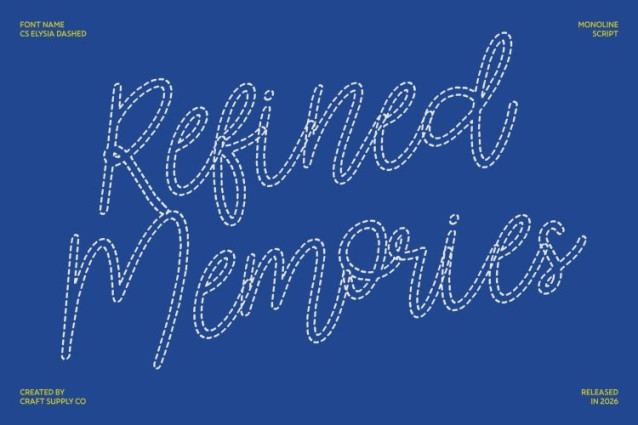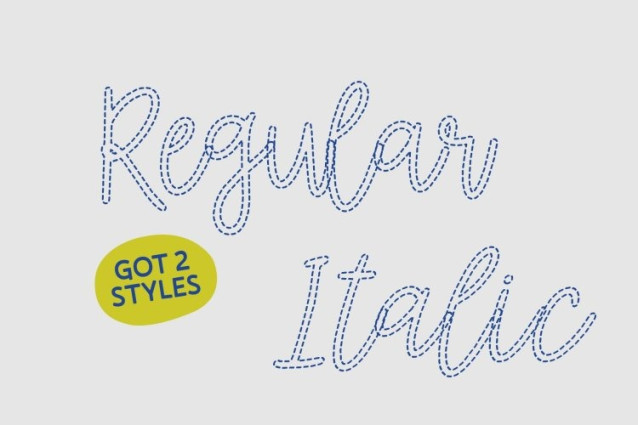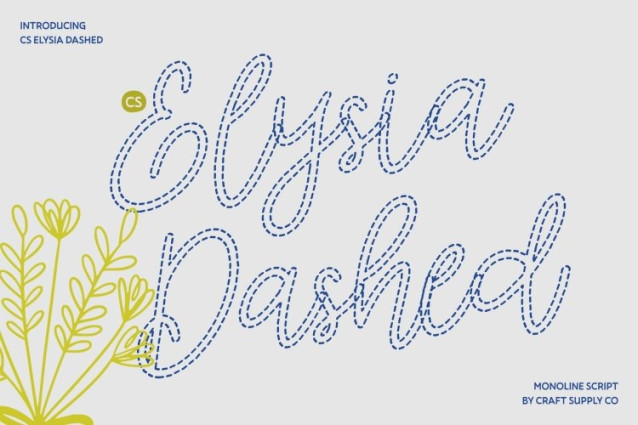
CS Elysia Dashed Font – This is a monoline script font that embodies sophistication through smooth curves and balanced rhythm. What sets it apart is its delicate dashed construction each stroke is formed from fine, broken segments rather than solid continuous lines. This creates a light, airy texture that enhances the sense of movement while preserving clarity and elegance. The result is a script that feels romantic, graceful, and visually distinctive.
Effortless Style with Modern Artistic Detail
Designed with harmony and refinement in mind, blends classic beauty with a subtle creative twist. The consistent monoline weight maintains a clean and polished look, while the segmented strokes introduce softness and a relaxed artistic feel. This balance gives the font a luxurious yet approachable personality, ideal for modern designs that seek understated sophistication.
Perfect for Elegant and Romantic Designs
From wedding invitations and fashion branding to luxury packaging and editorial layouts, adds a refined decorative touch. Its flowing, connected letters feel intimate and expressive, while the dashed style introduces gentle texture that enhances visual interest without overpowering the composition.
Timeless, Poised, and Creatively Distinctive
With its clean monoline structure and airy dashed detailing, adapts beautifully to both print and digital media. More than just a script font, it is a visual expression of grace elevating creative work with elegance, warmth, and a relaxed yet polished charm.